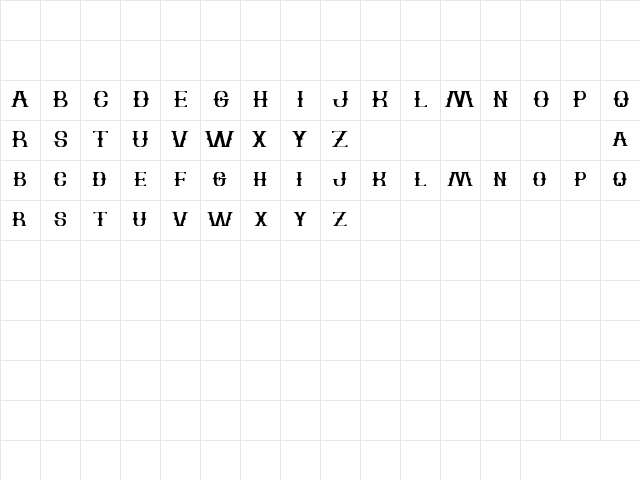
Complete The Bartender Regular glyph index. Displaying only characters natively supported by The Bartender Regular font.
The Bartender is a composed and adaptable typeface that performs quietly and consistently across a wide range of design contexts.
Pro Tip: Use The Bartender in both headline and body roles to test its range before committing to a single application.